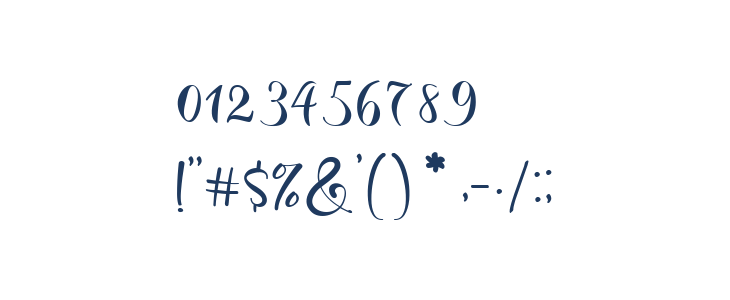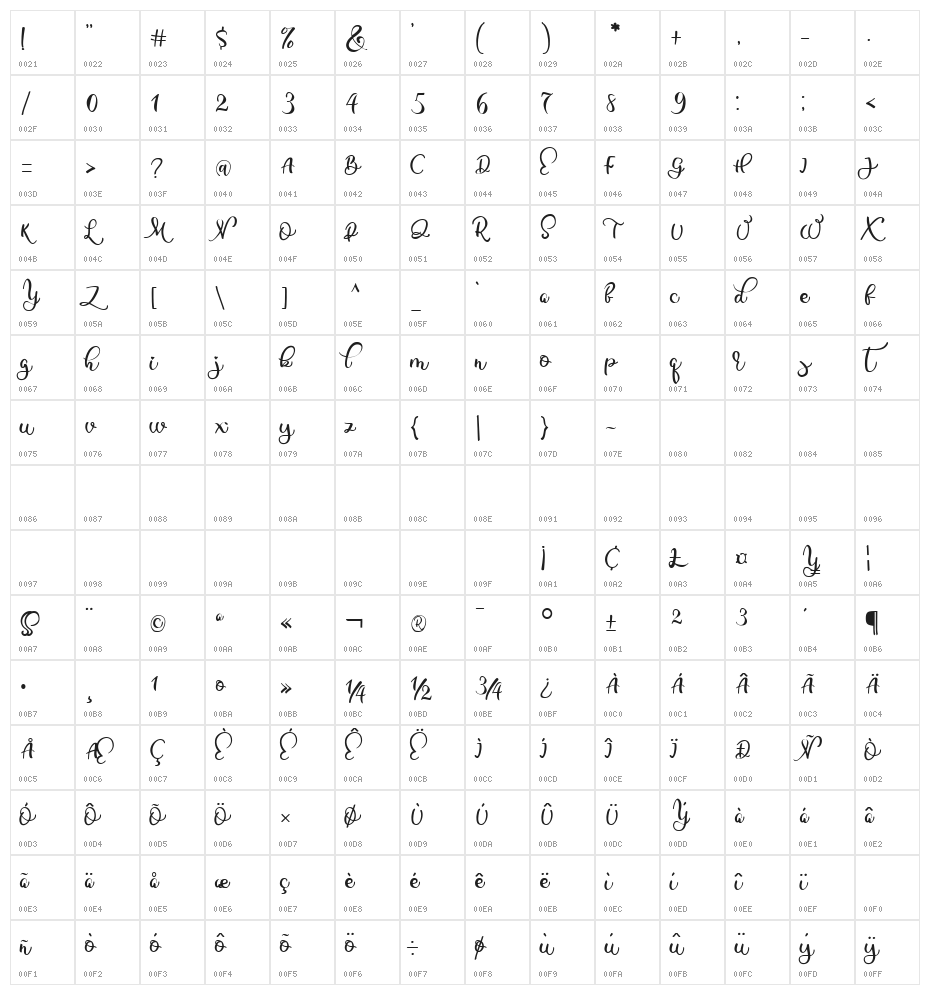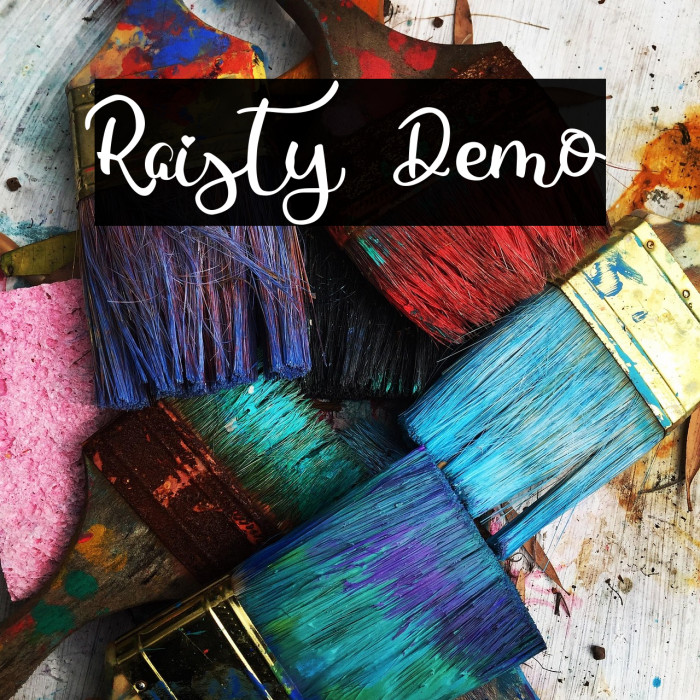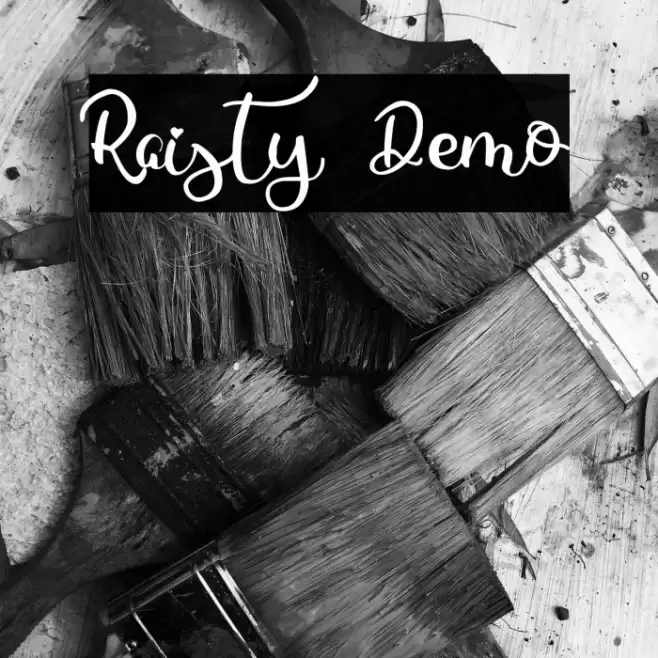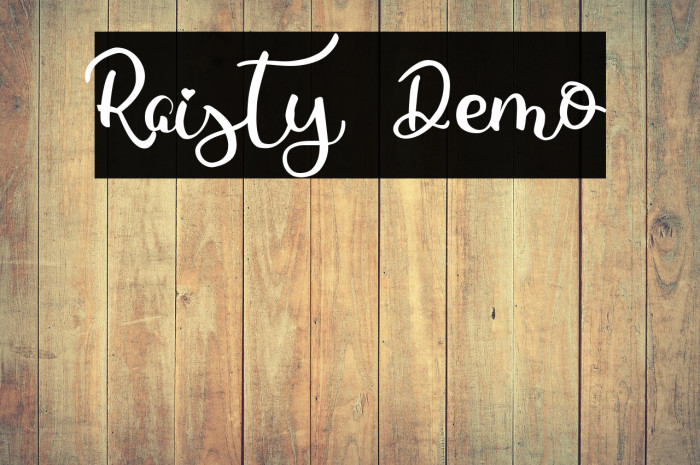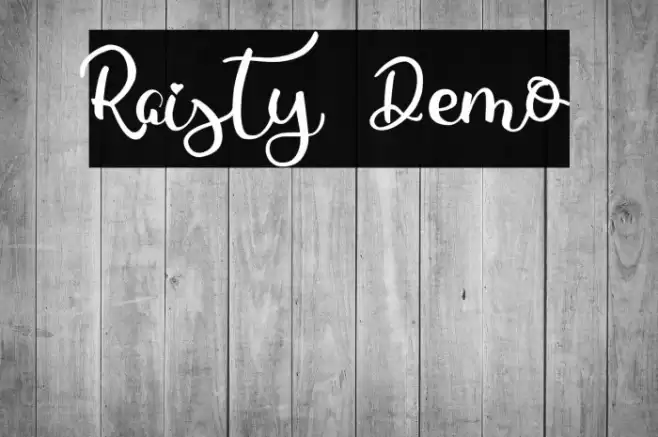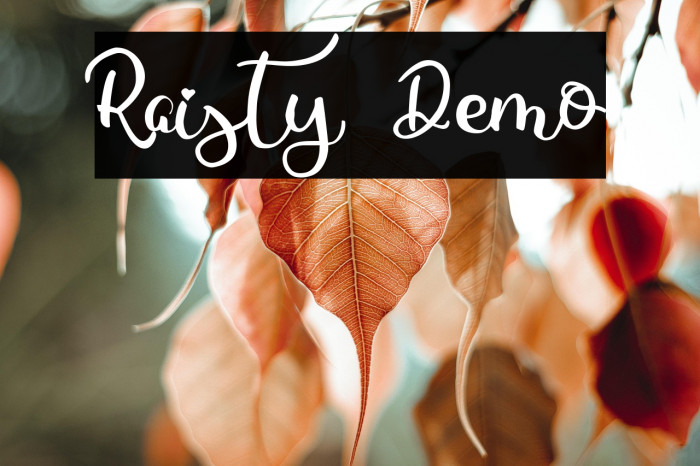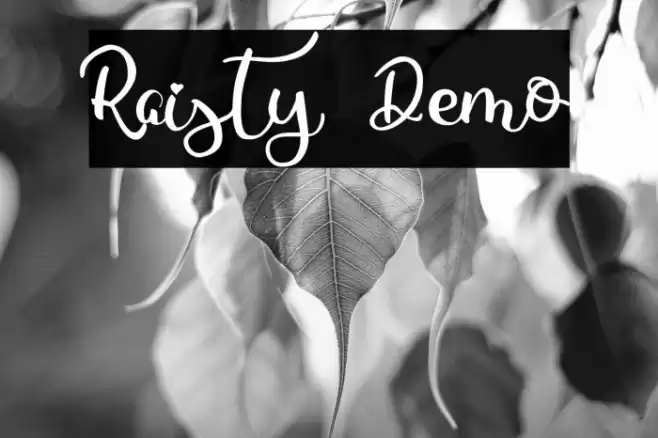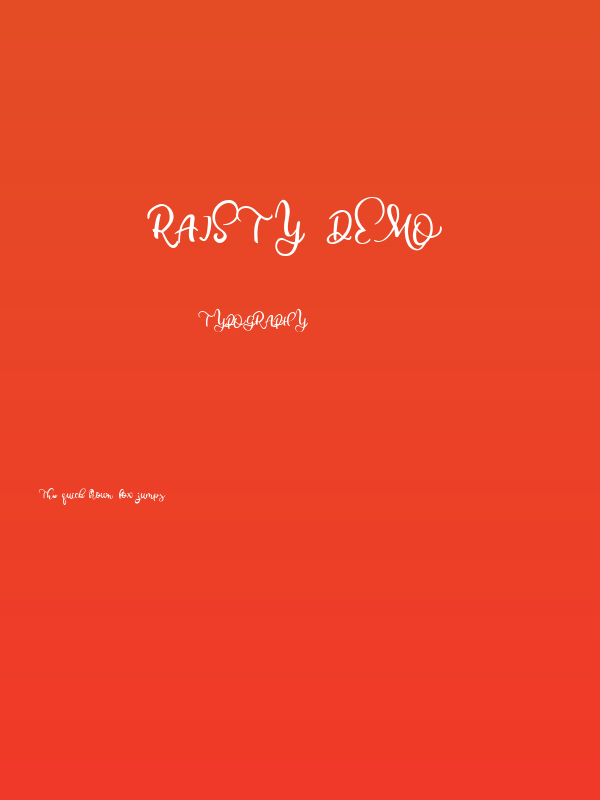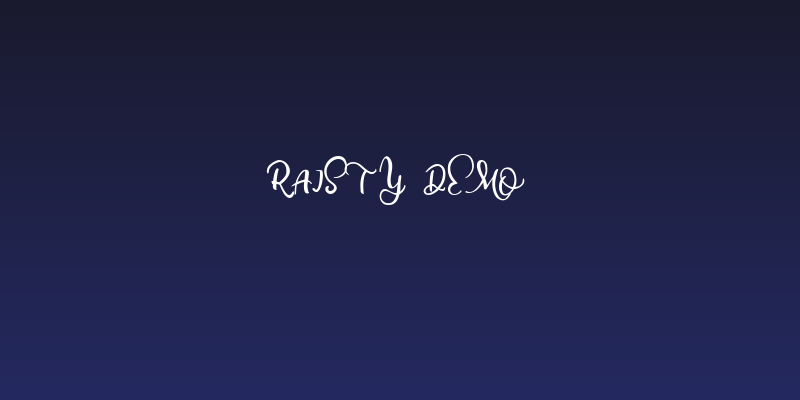
Raisty Demo Font
Raisty Demo Description
This font features an elegant and flowing script style, characterized by its smooth, cursive lines and graceful curves. The uppercase letters are bold and expressive, with intricate loops and swirls that give a sense of movement and fluidity. The lowercase letters maintain a consistent style, with a slightly more restrained design that complements the uppercase characters. Numbers and special characters are designed with the same attention to detail, ensuring a cohesive look across all elements. This font exudes a sense of sophistication and charm, making it ideal for projects that require a touch of elegance.
| Proposed Projects | Ideal for wedding invitations, greeting cards, branding, and elegant logo designs. |